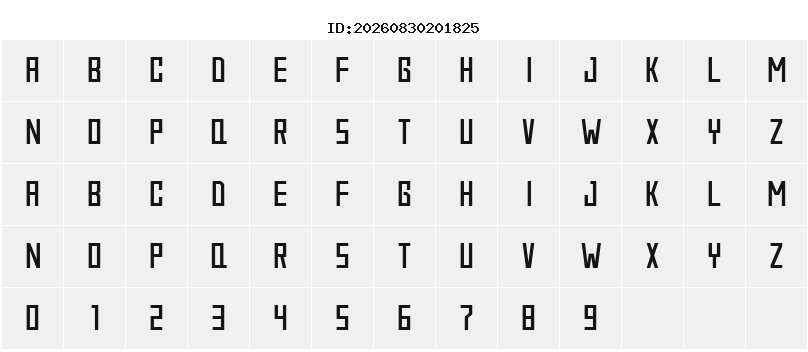
• Font Name: Temporary
• Font Style: Extra
• Full Font Name: Temporary Extra
About Temporary.ttf
Temporary.ttf is a modern, elegant sans-serif font designed for ultimate readability and visual harmony. Perfect for branding, headlines, web design, and print materials.